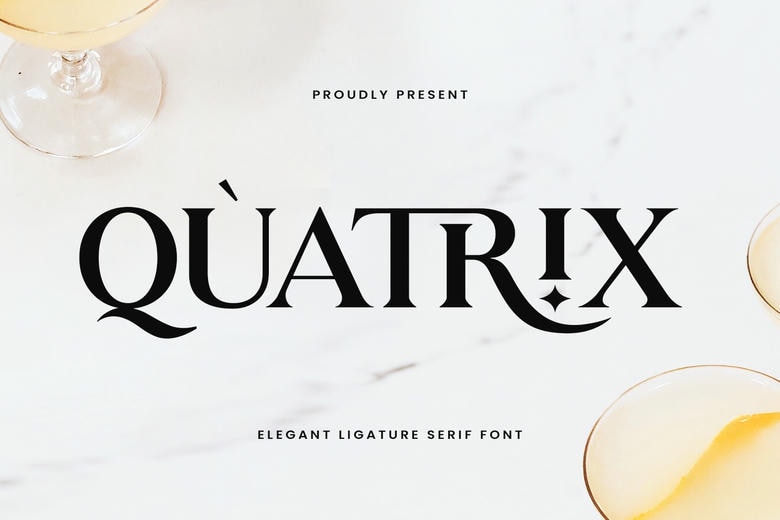
Quatrix Font
Quatrix is a refined serif font that combines classic elegance with modern sophistication. Its unique ligatures and luxurious design elements create a harmonious balance, making it perfect for high-end branding, fashion editorials, and elegant logo designs. Every detail of Quatrix is meticulously crafted to exude timeless beauty and charm.
This versatile font blends traditional serif strokes with decorative nuances, giving your projects a distinctive and prestigious feel. Whether you’re designing a sleek magazine layout, an opulent wedding invitation, or a statement-making headline, Quatrix adds a touch of elegance that stands out in any context.
Quatrix’s carefully designed ligatures ensure a seamless flow between characters, adding a bespoke quality to your work. Its timeless style effortlessly complements minimalist designs while commanding attention in bold compositions, making it a reliable choice for any sophisticated creative endeavor.
Quatrix Serif Font